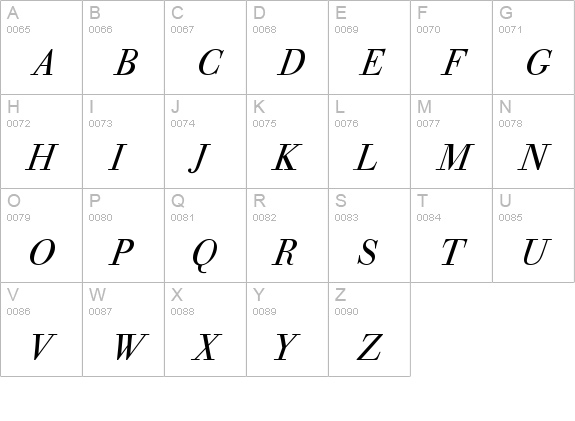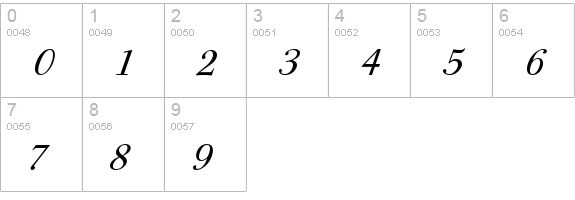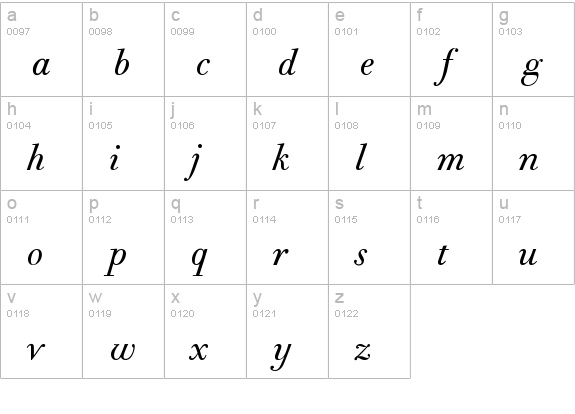
PFBodoniText Italic is a distinctive, italic variant in the PFBodoniText typeface family \xE2\x80\x94 well suited to design and typography projects.
PFBodoniText Italic font is a stylish and elegant typeface that exudes sophistication and grace. Its sleek and slanted design adds a touch of flair to any text, making it perfect for projects that require a touch of finesse. The graceful curves and delicate strokes of this font create a sense of refinement and class, making it ideal for use in branding, invitations, and editorial design. The PFBodoniText Italic font is not only visually appealing but also highly versatile, suitable for a wide range of design applications. Whether you're working on a wedding invitation, a fashion magazine layout, or a high-end product packaging, this font will elevate your design and give it a touch of luxury. Best of all, PFBodoniText Italic font is available for free download at FontsMarket.com, making it easily accessible to designers and creatives looking to add a touch of elegance to their projects without breaking the bank. Don't miss out on this opportunity to enhance your designs with this beautiful and timeless typeface. Download PFBodoniText Italic font today and elevate your design to the next level.